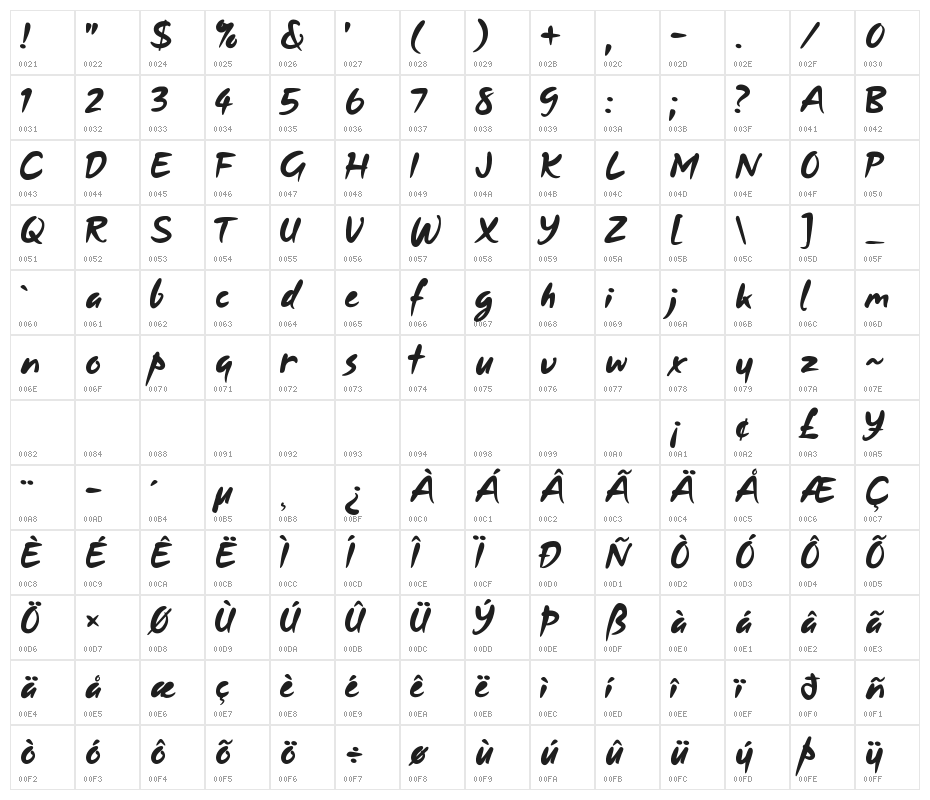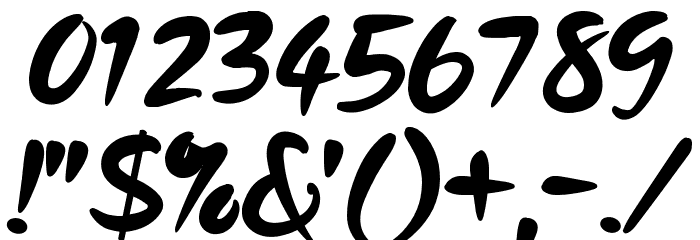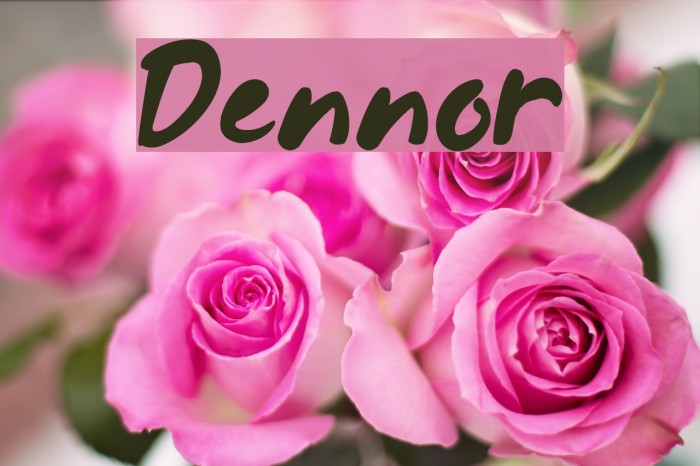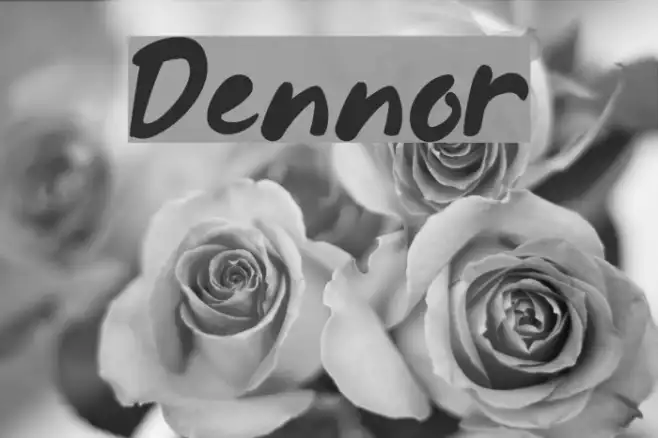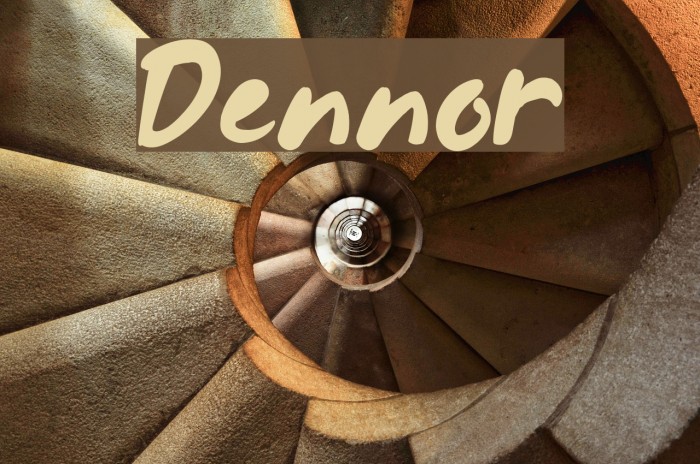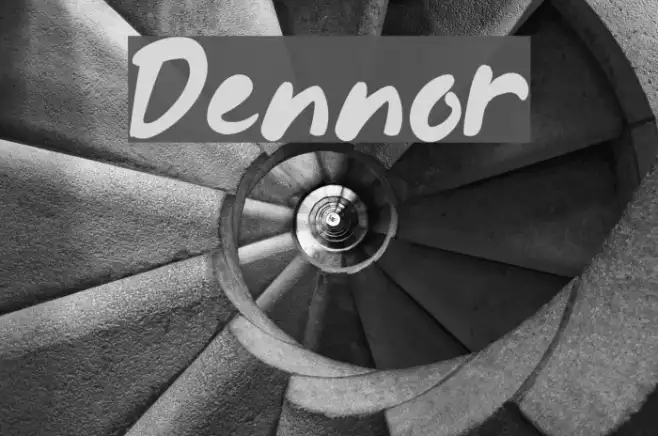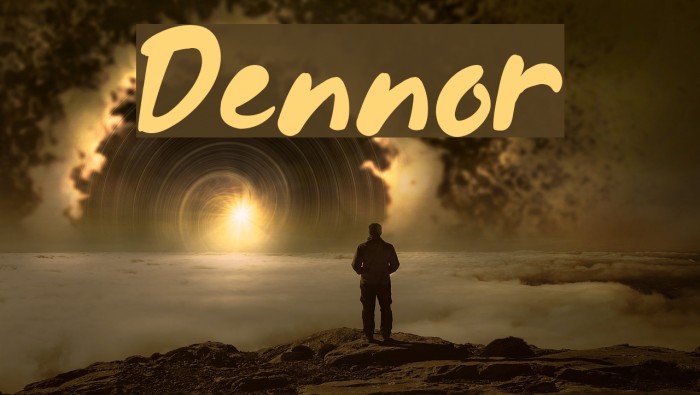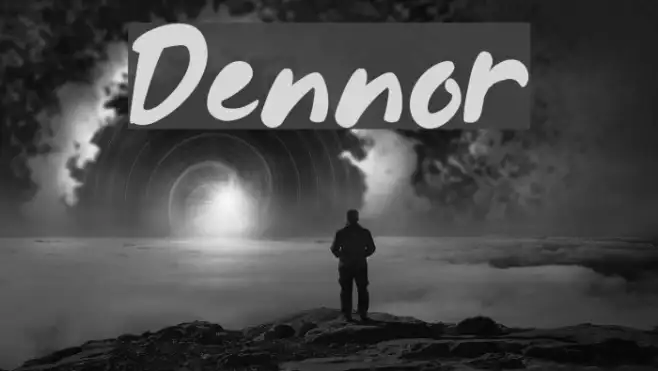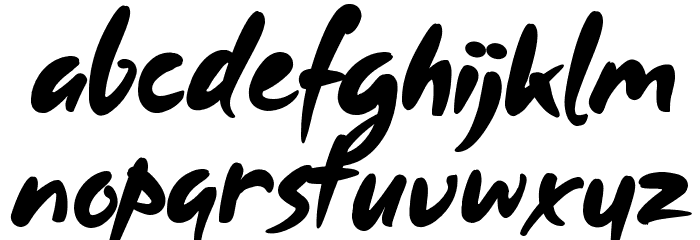
Dennor Font
Dennor Description
This font exhibits a dynamic and energetic style, characterized by its bold and flowing script. The letters are crafted with a sense of movement, featuring smooth curves and sharp angles that give it a lively appearance. The uppercase and lowercase letters maintain a consistent style, with a slight slant that adds to its informal and casual feel. The numerals and special characters are designed to match the overall aesthetic, ensuring a cohesive look across all text elements. This font is ideal for projects that require a personal touch, such as invitations, greeting cards, or branding materials that aim to convey a sense of creativity and spontaneity.
| Use Case | Logos, Headlines, Creative projects |
| Proposed Projects | Ideal for invitations, greeting cards, branding materials, and creative projects. |